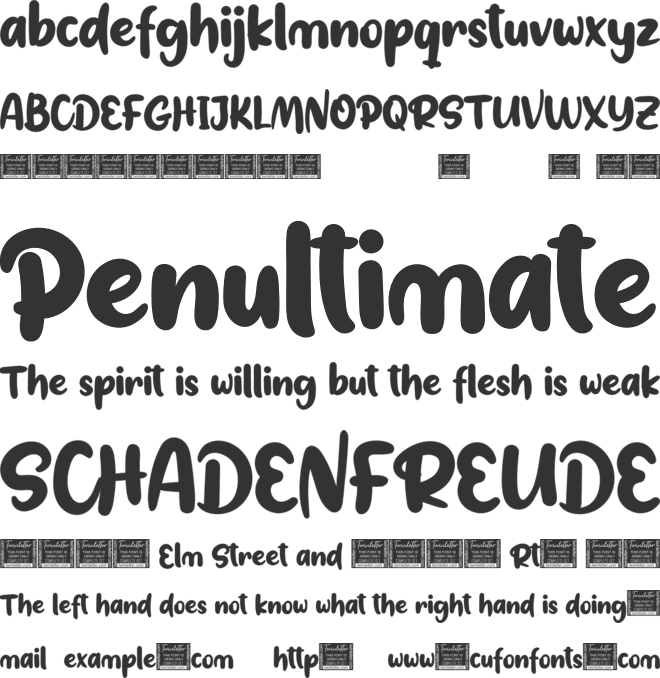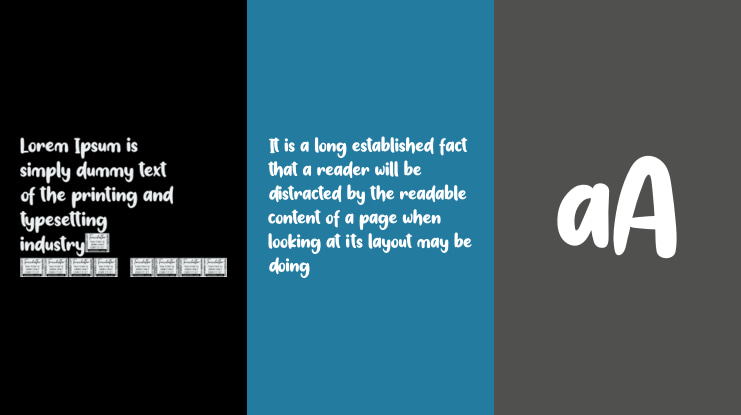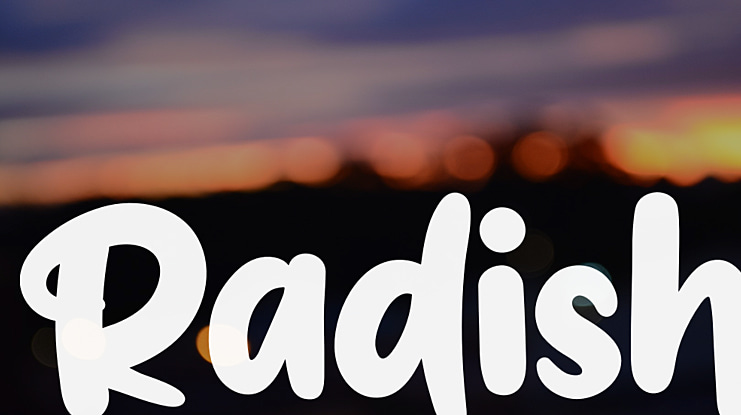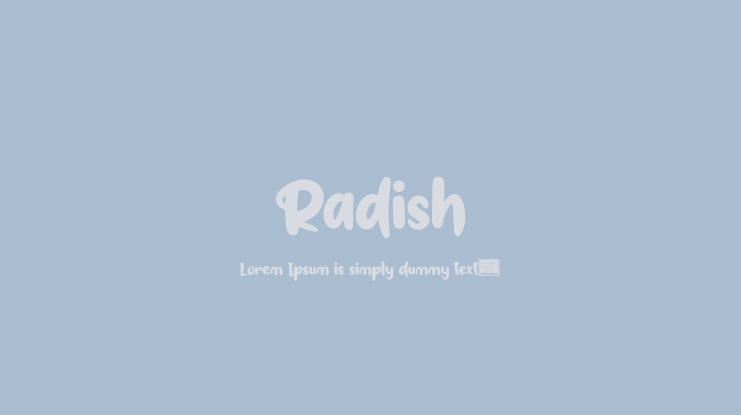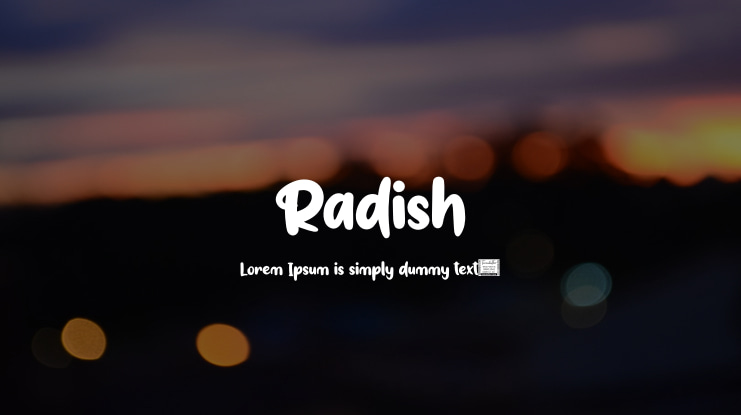
Radish is relaxed, elegant, and dainty handwriting and looks that features sweet and subtle strokes. This original look will appeal to a variety of craft ideas, from letterheads and titles to fun, natural handwriting.
This font is designed with a natural touch of handwriting refined to create portions and compositions that suit your needs. So this font is perfect for crafts, kids writing, adventure posters, banner titles, wedding invitations, product packaging logos, quotes, social media page covers, furniture banner titles, book covers, and more.